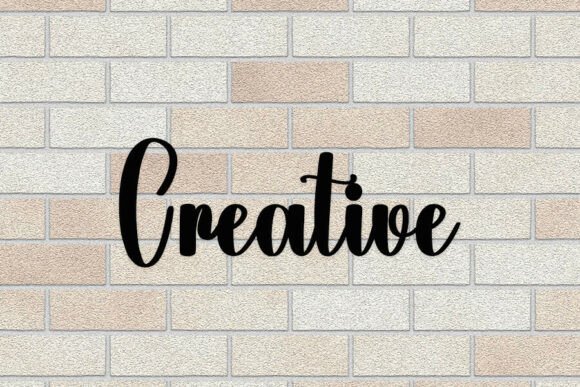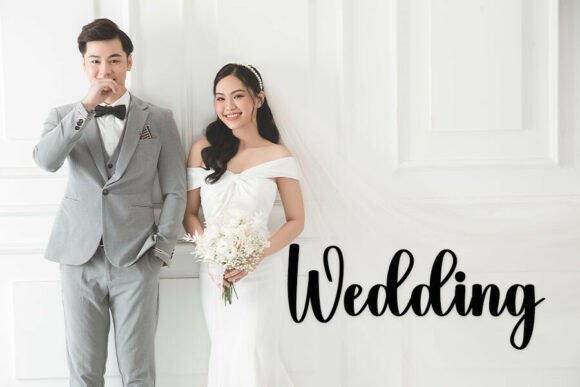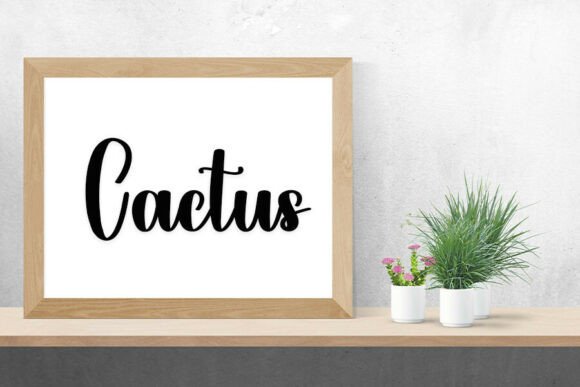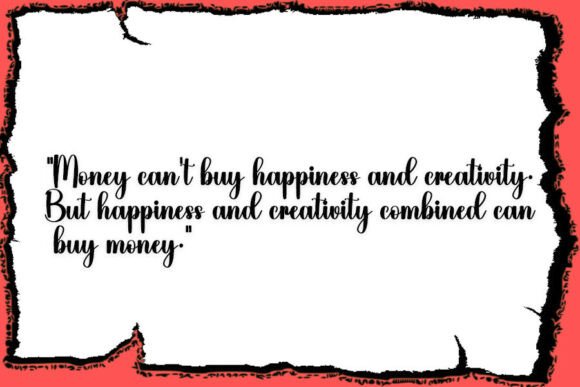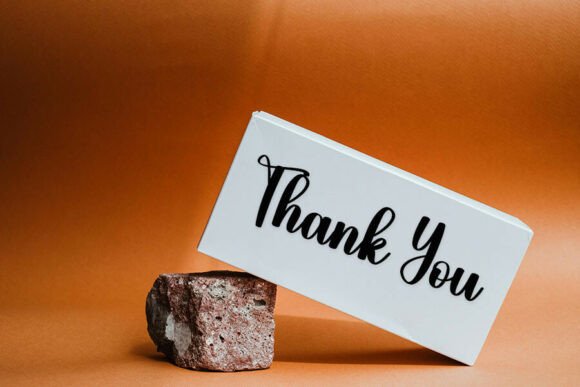
Baby Boho Font: The Sweet and Cursive Handwritten Font for Your Design Needs
Are you looking for a font that can add a touch of elegance and whimsy to your designs? Look no further than the Baby Boho Font. This sweet and cursive handwritten font is perfect for a variety of design projects, from branding and logos to wedding materials and greeting cards.
The Characteristics of Baby Boho Font
Baby Boho Font is a gentle and elegant font that is sure to capture the attention of your audience. Its cursive and handwritten style gives it a personal and intimate feel, making it perfect for designs that require a touch of warmth and personality. The font is also highly versatile, and can be used on a range of design projects, from fashion and lookbooks to marketing promotions and more.
Why Choose Baby Boho Font?
There are many reasons why Baby Boho Font is a great choice for your design needs. Here are just a few:
- Unique and eye-catching: Baby Boho Font has a unique and eye-catching style that will set your designs apart from the crowd.
- Versatile: The font can be used on a range of design projects, from branding and logos to wedding materials and greeting cards.
- Elegant and whimsical: Baby Boho Font has a sweet and cursive style that adds a touch of elegance and whimsy to any design.
- Easy to read: Despite its elegant and cursive style, Baby Boho Font is easy to read and understand, making it perfect for designs that require a clear and concise message.
How to Use Baby Boho Font
Baby Boho Font can be used on a range of design projects, including:
- Branding and logos: Use Baby Boho Font to create a unique and eye-catching logo that reflects your brand’s personality.
- Wedding materials: Add a touch of elegance and whimsy to your wedding materials, such as invitations, programs, and place cards.
- Greeting cards: Use Baby Boho Font to create beautiful and personalized greeting cards for any occasion.
- Fashion and lookbooks: Add a touch of elegance and sophistication to your fashion and lookbook designs.
- Marketing promotions: Use Baby Boho Font to create eye-catching and effective marketing promotions, such as flyers, brochures, and posters.
Tips for Using Baby Boho Font
Here are a few tips for using Baby Boho Font:
- Use it sparingly: While Baby Boho Font is a beautiful font, it can be overwhelming if used too much. Use it sparingly to add a touch of elegance and whimsy to your designs.
- Pair it with other fonts: Baby Boho Font pairs well with other fonts, such as sans-serif fonts. Experiment with different font combinations to find the perfect look for your design.
- Use it in different sizes: Baby Boho Font looks great in different sizes. Experiment with different font sizes to add visual interest to your designs.
In conclusion, Baby Boho Font is a sweet and cursive handwritten font that is perfect for a variety of design projects. Its elegant and whimsical style adds a touch of personality and warmth to any design, making it perfect for designers and crafters who want to create unique and eye-catching designs. With its versatility and ease of use, Baby Boho Font is a great choice for anyone looking to add a touch of elegance and sophistication to their designs.